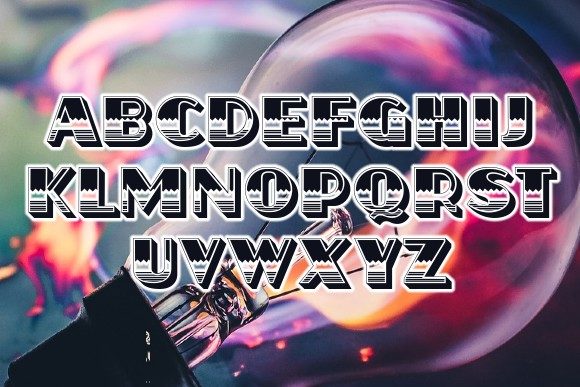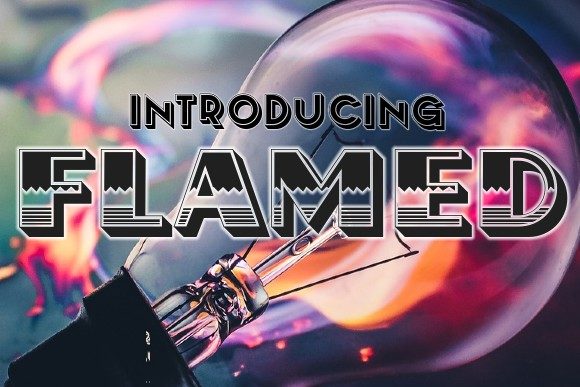
Introducing Flamed Font: Elevate Your Crafting Ideas with a Cool and Festive Touch
Are you looking for a font that can add a cool and festive touch to your crafting ideas? Look no further than Flamed Font! This decorative font is perfect for a wide range of projects, from cards and invitations to branding, labels, and more. With its unique and eye-catching design, Flamed Font is sure to elevate your creations and leave a lasting impression.
What is Flamed Font?
Flamed Font is a decorative font that features a unique and festive design. Its cool and playful style makes it perfect for a variety of crafting ideas, from DIY projects to professional designs. The font is easy to use and can be added to your favorite creations with confidence.
Features of Flamed Font
- Unique Design: Flamed Font features a unique and eye-catching design that is sure to stand out.
- Cool and Festive: The font has a cool and festive style that makes it perfect for a variety of crafting ideas.
- Easy to Use: Flamed Font is easy to use and can be added to your favorite creations with confidence.
- Versatile: The font is versatile and can be used for a wide range of projects, from cards and invitations to branding and labels.
Uses of Flamed Font
Flamed Font can be used for a wide range of crafting ideas, including:
- Cards and Invitations: Add a cool and festive touch to your cards and invitations with Flamed Font.
- Branding: Use Flamed Font to create unique and eye-catching branding materials, such as logos and business cards.
- Labels: Add a festive touch to your labels with Flamed Font.
- DIY Projects: Use Flamed Font to add a cool and playful touch to your DIY projects.
Benefits of Using Flamed Font
There are many benefits to using Flamed Font, including:
- Easier to Create: Flamed Font makes it easier to create cool and festive designs, without requiring extensive design experience.
- Time-Saving: The font saves time and effort, allowing you to focus on other aspects of your project.
- Unique Designs: Flamed Font helps you create unique and eye-catching designs that stand out from the crowd.
Tips for Using Flamed Font
Here are some tips for using Flamed Font:
- Experiment with Different Sizes: Experiment with different font sizes to find the perfect size for your project.
- Pair with Other Fonts: Pair Flamed Font with other fonts to create a unique and eye-catching design.
- Use on Different Backgrounds: Use Flamed Font on different backgrounds to create a contrasting effect.
Flamed Font is a cool and festive decorative font that can elevate a wide range of crafting ideas. With its unique and eye-catching design, Flamed Font is perfect for cards, branding, labels, and more. Whether you’re a designer or a crafter, Flamed Font is a great addition to your toolkit. So why wait? Add Flamed Font to your favorite creations and let yourself be amazed by the outcome generated!
With Flamed Font, you can:
- Create unique and eye-catching designs
- Add a cool and festive touch to your projects
- Easily elevate your crafting ideas